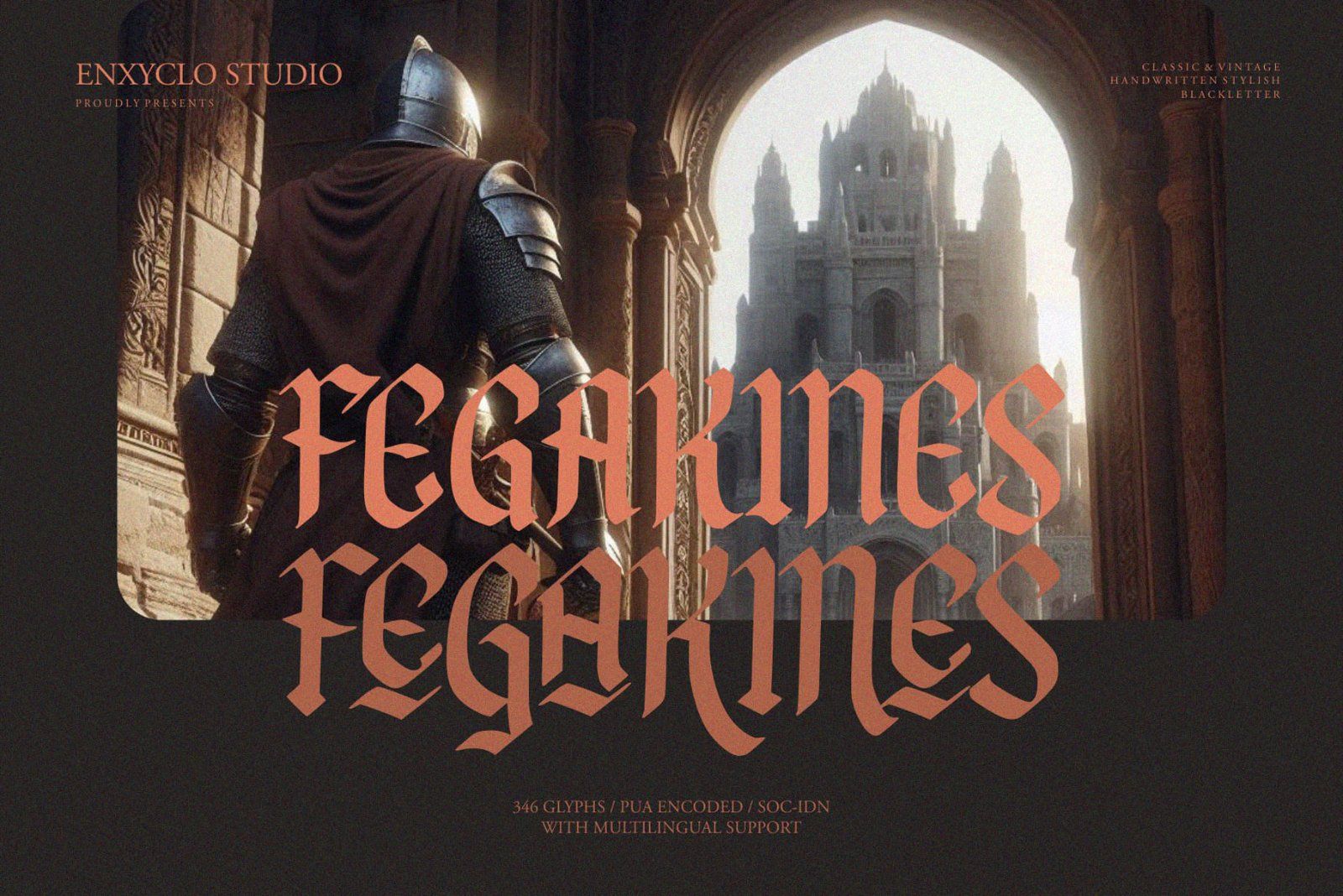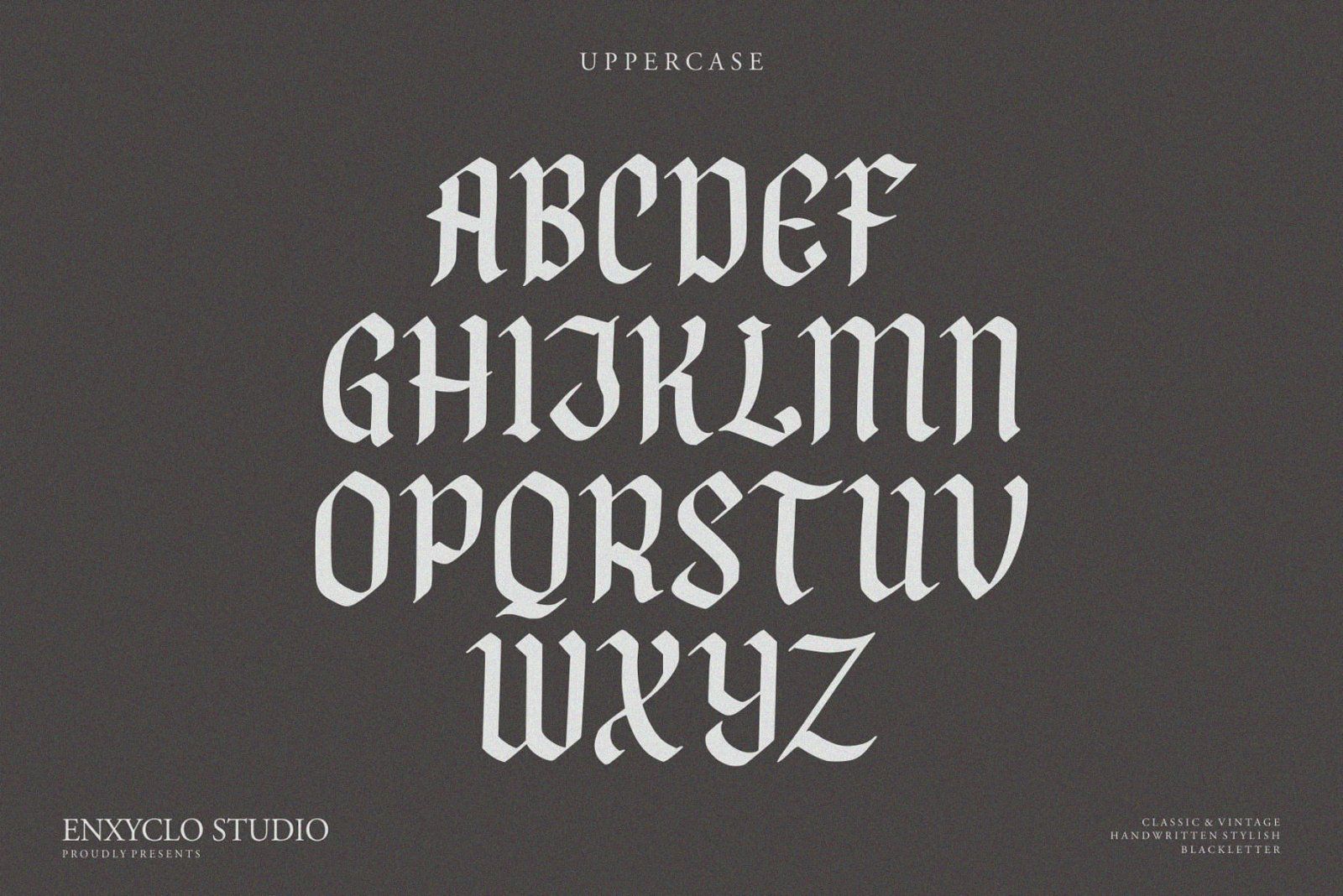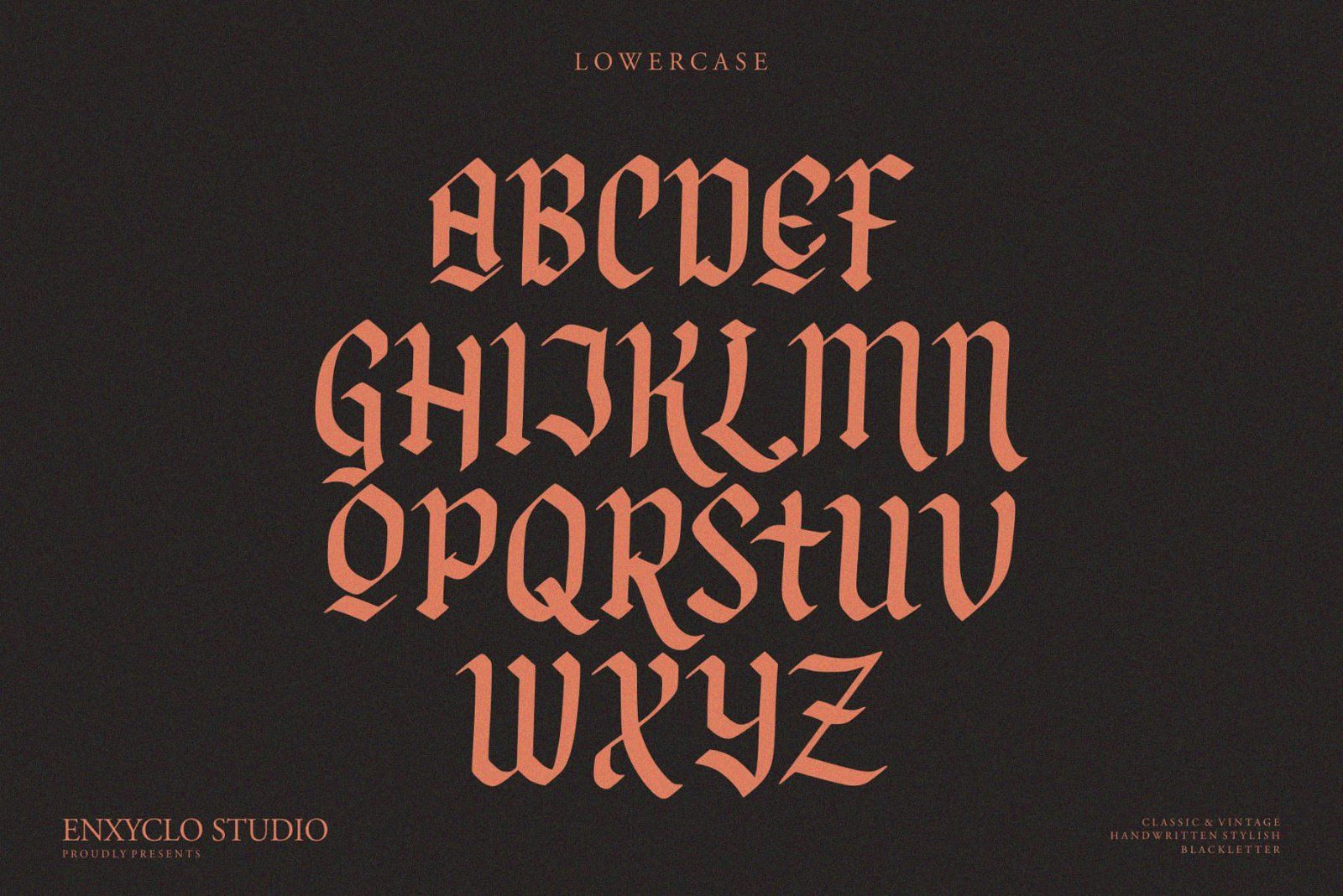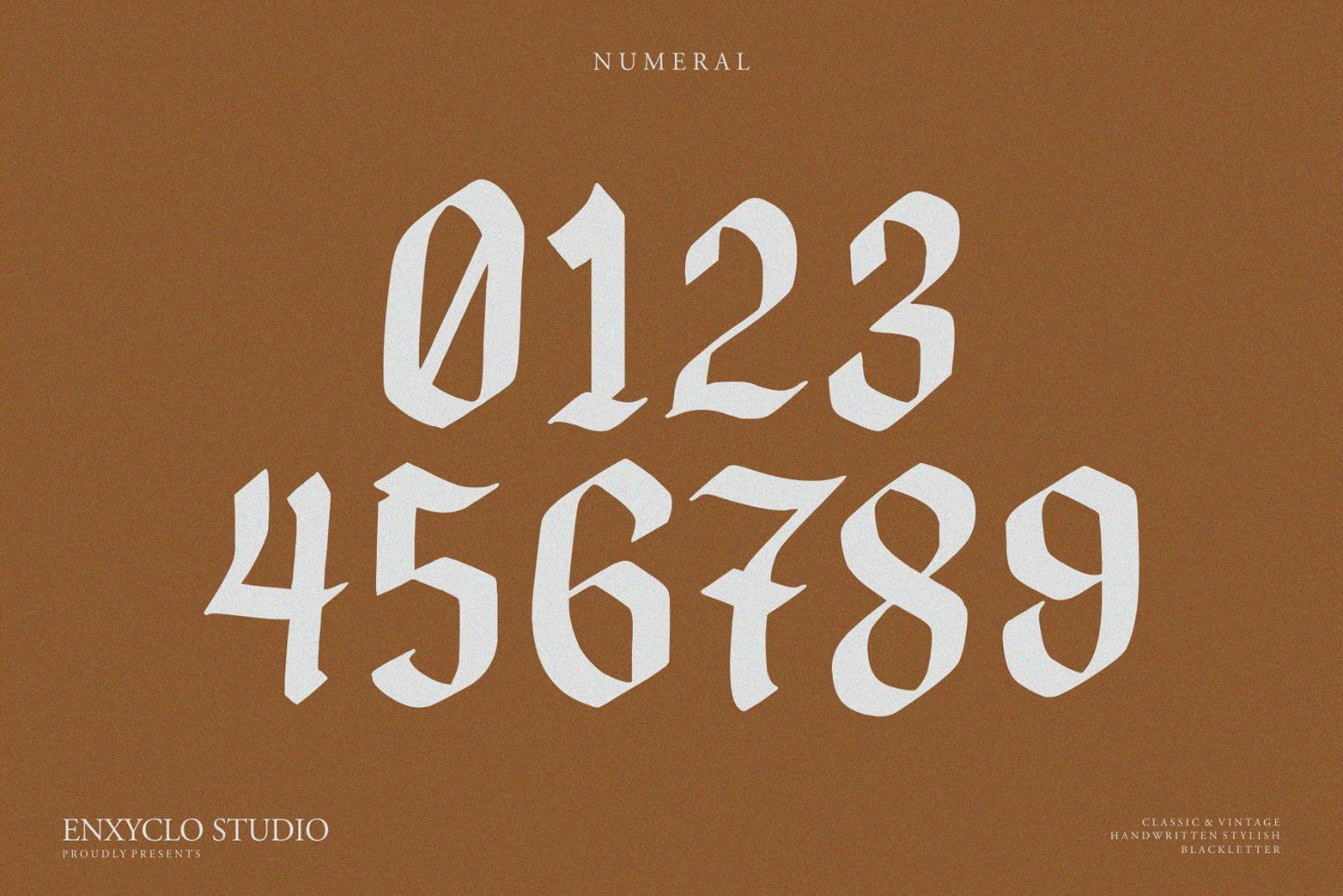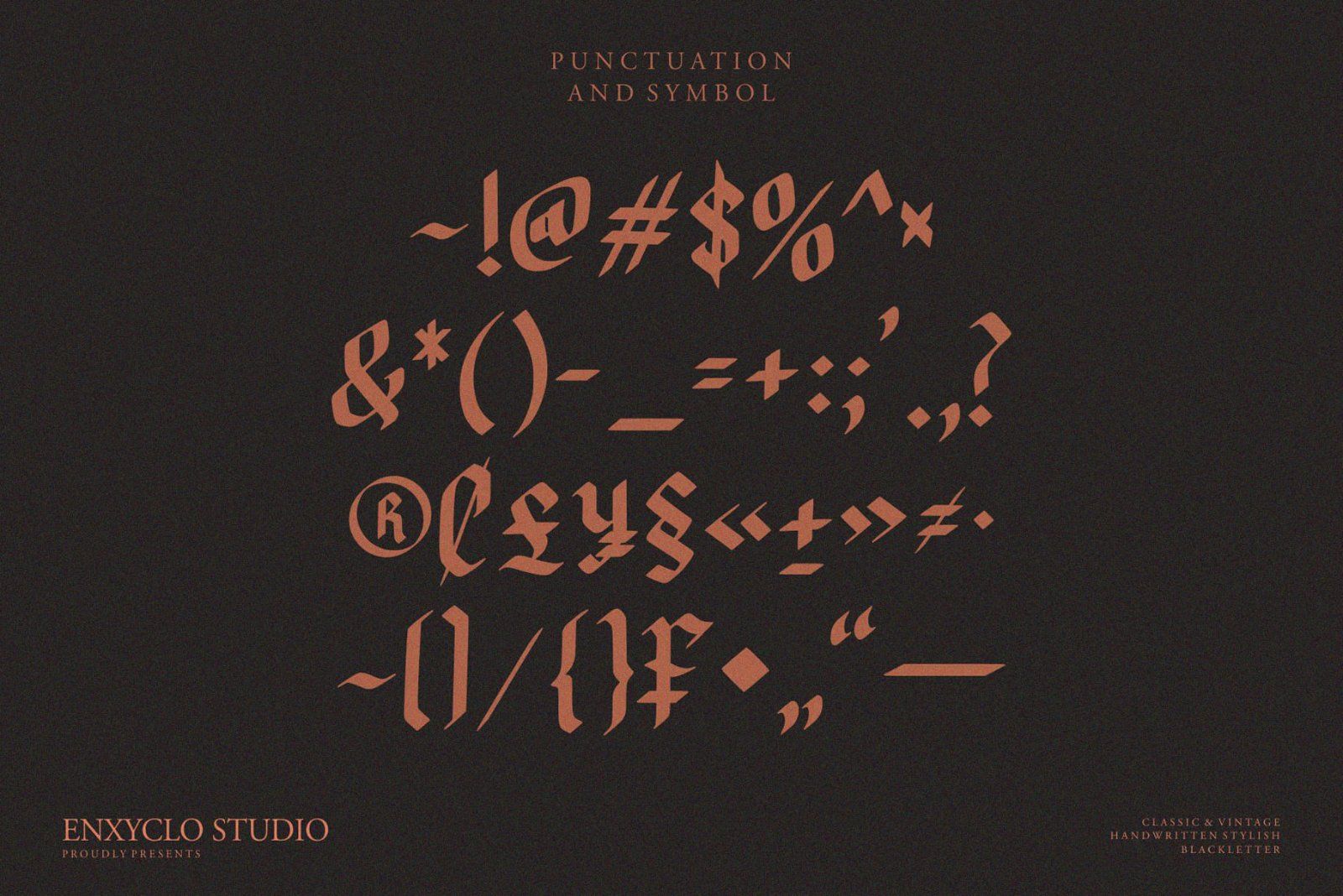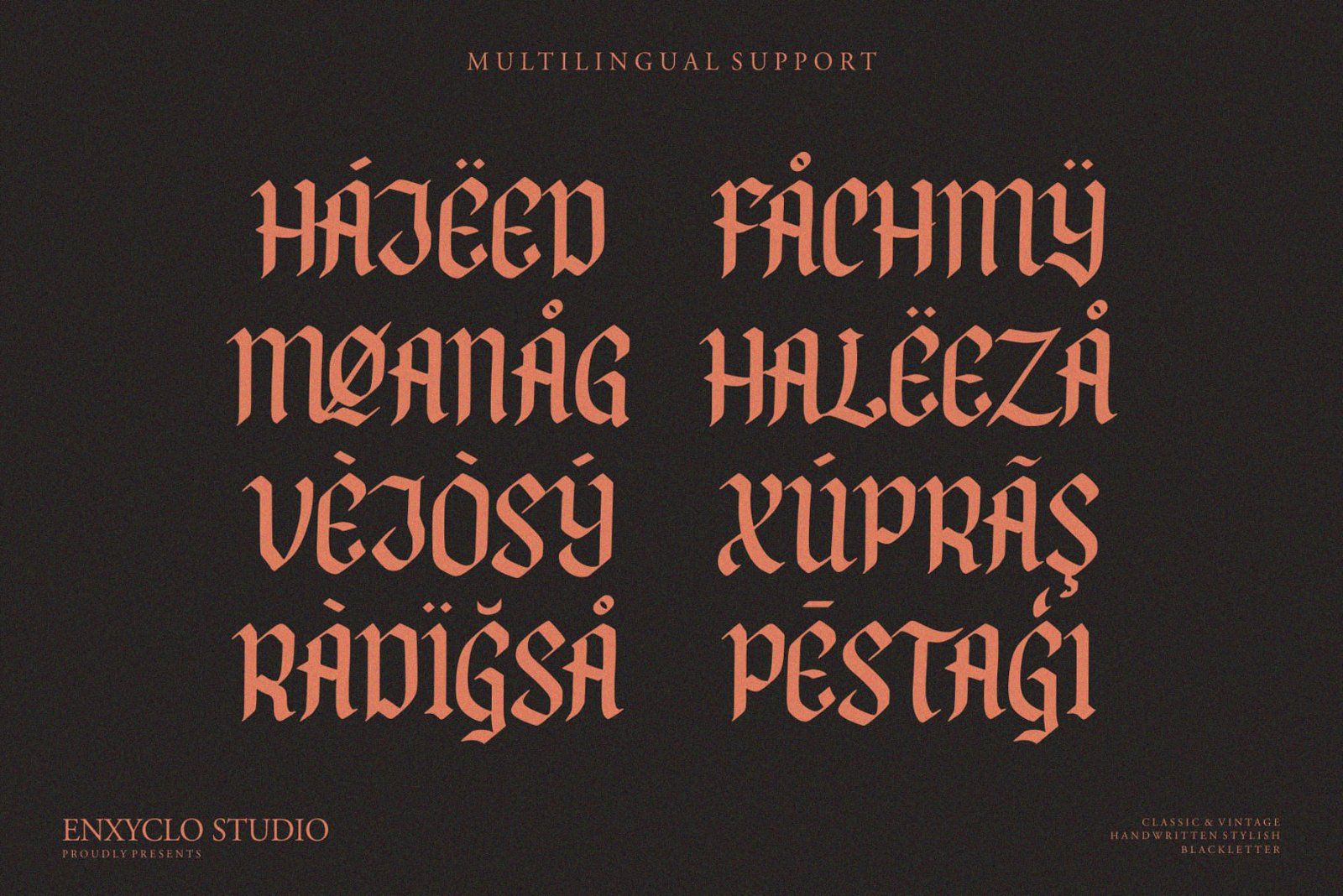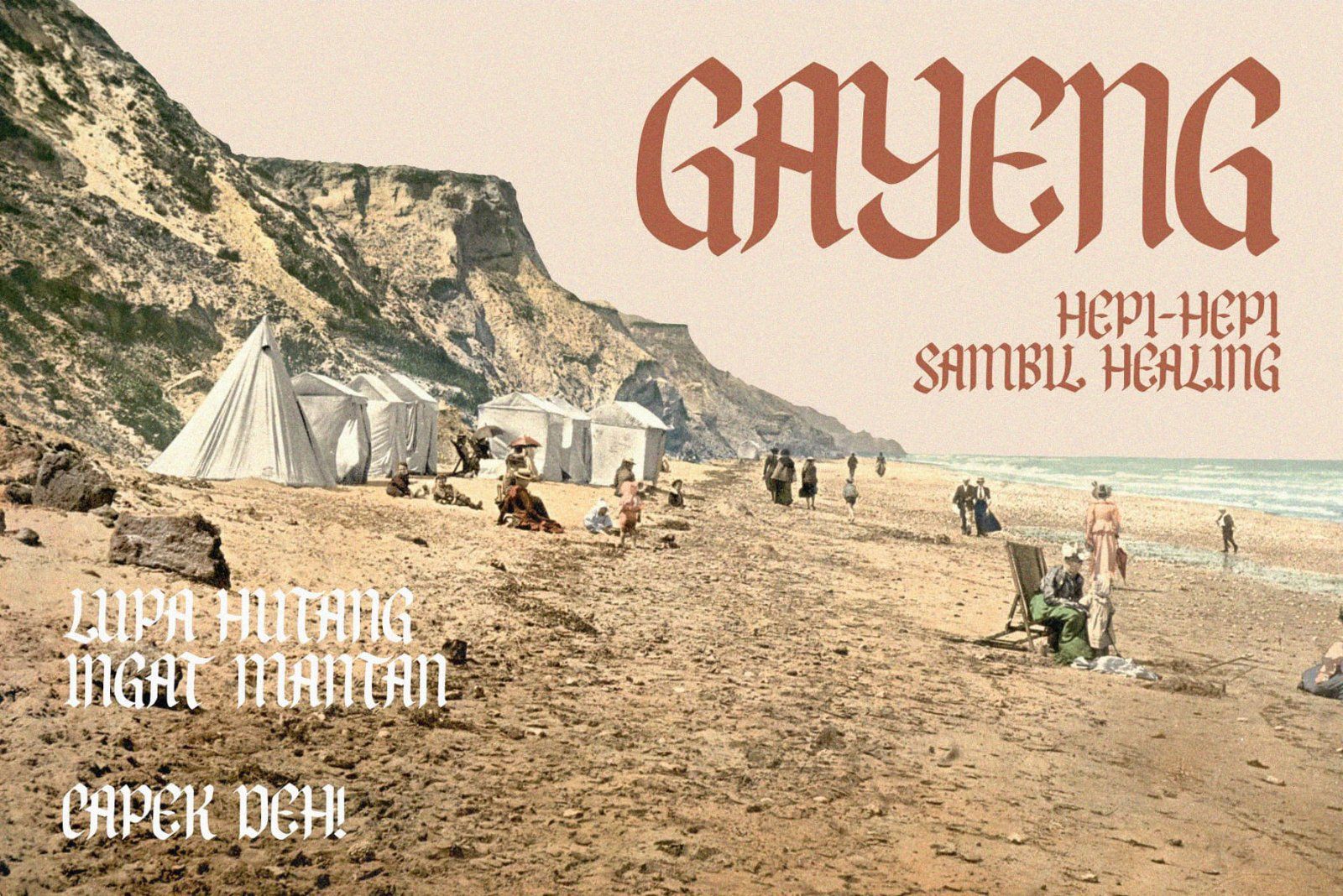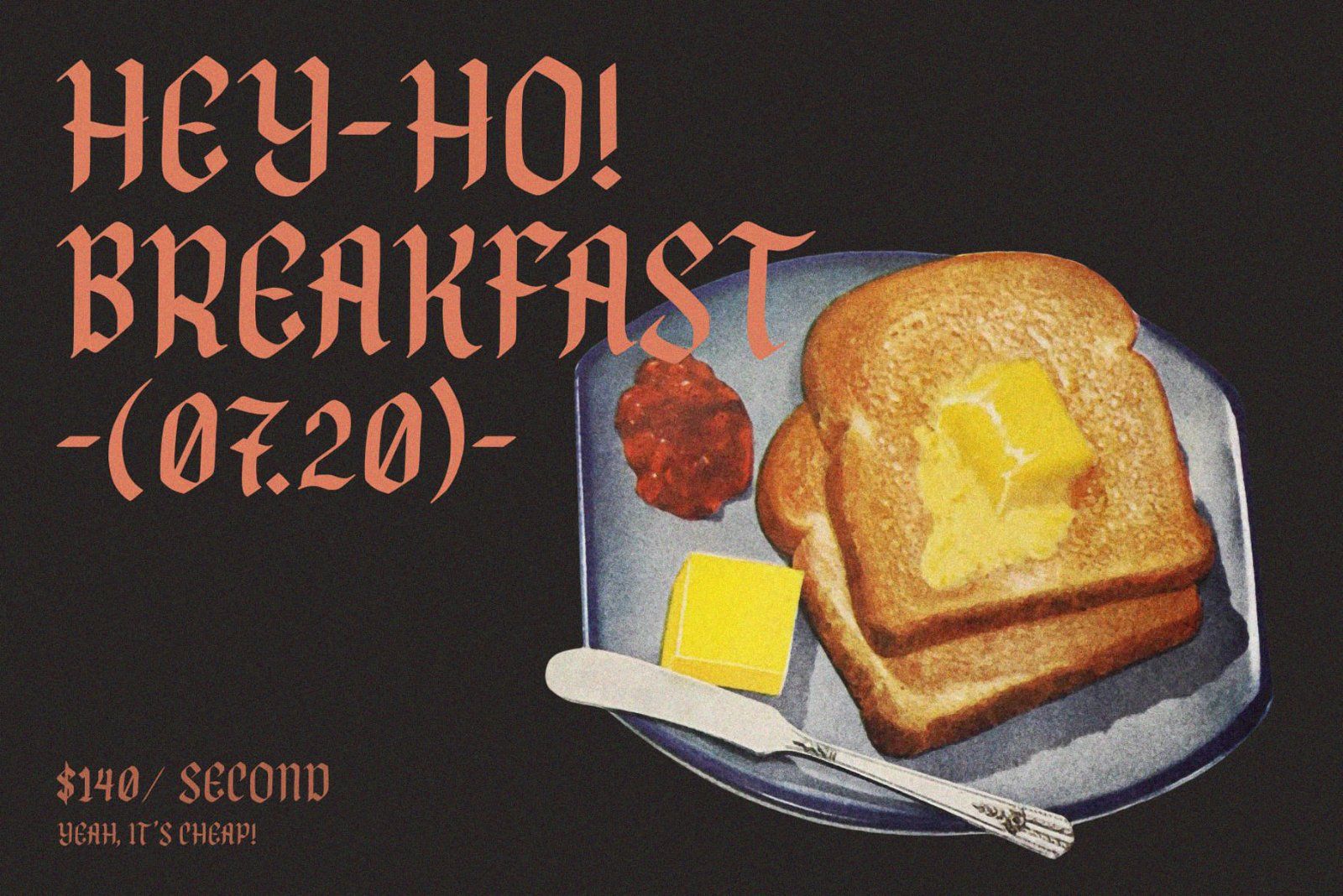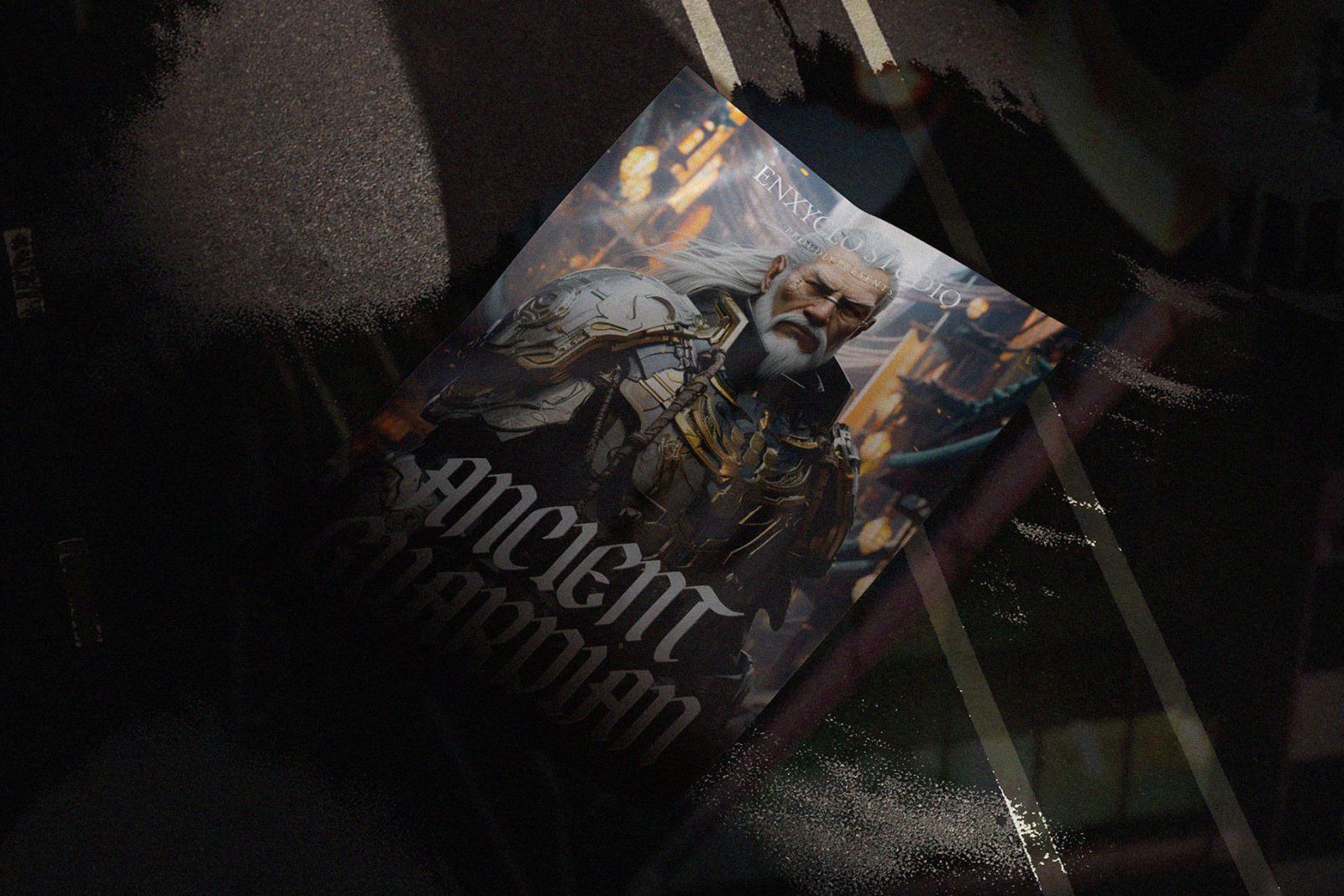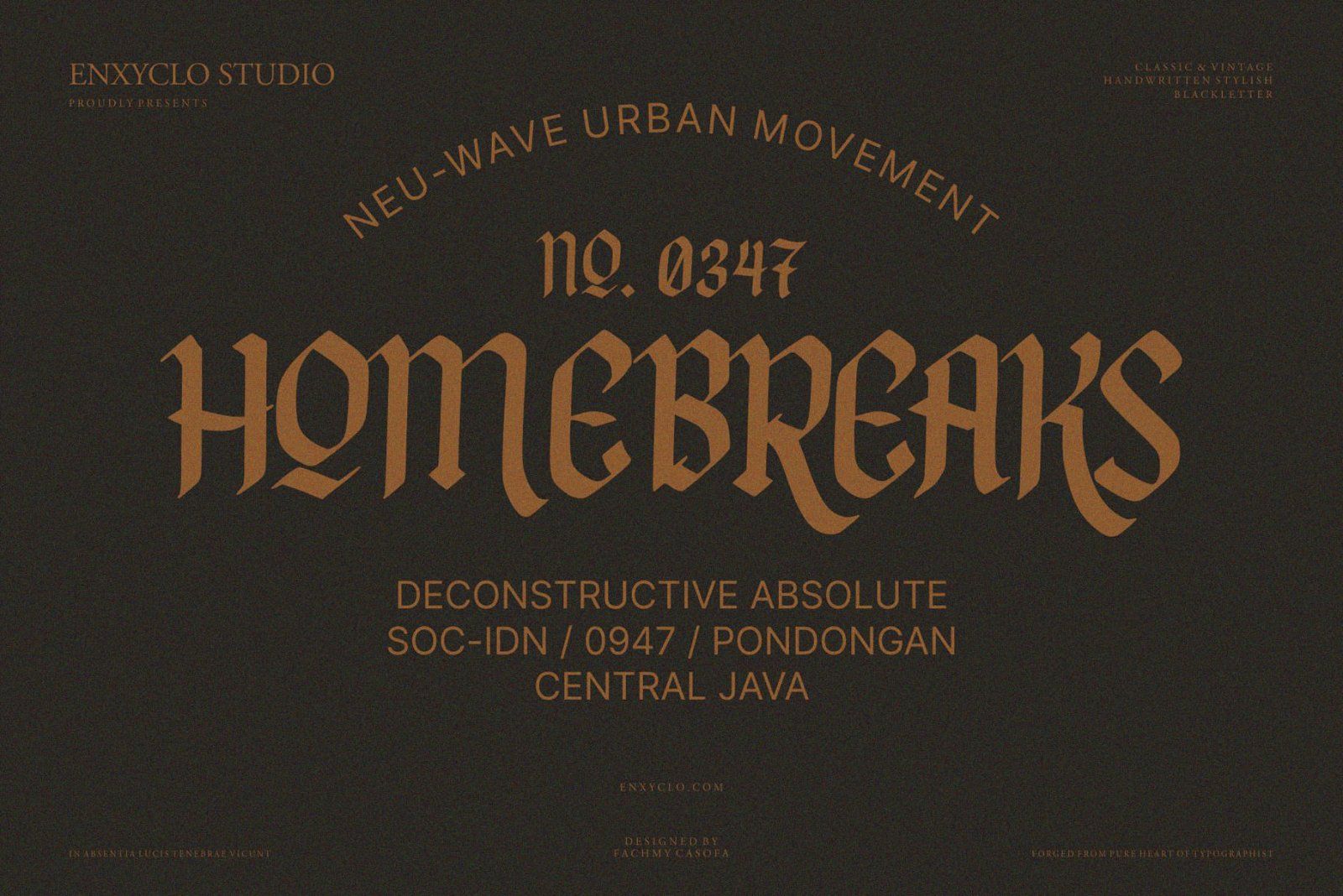
NCL FEGAKINES is is a fun, unique, stylish and modern blackletter display font. Masterfully designed to become a true favorite, this font has the potential to bring each of your creative ideas to the highest level! It was purposely crafted to be used in large point sizes, although it doesn’t lose its magic in small point sizes. It is perfect for headline, billboard, magazines, website, titles, poster, branding, and logos. No matter the topic, this font will be an incredible asset to your fonts’ library, as it has the potential to elevate any creation. With this beautiful font, absolutely you can make your project stand out from the rest. See the previews above to get some inspiration on how to use them.
• Uppercase, Lowercase, Numeral, Punctuation & Symbol